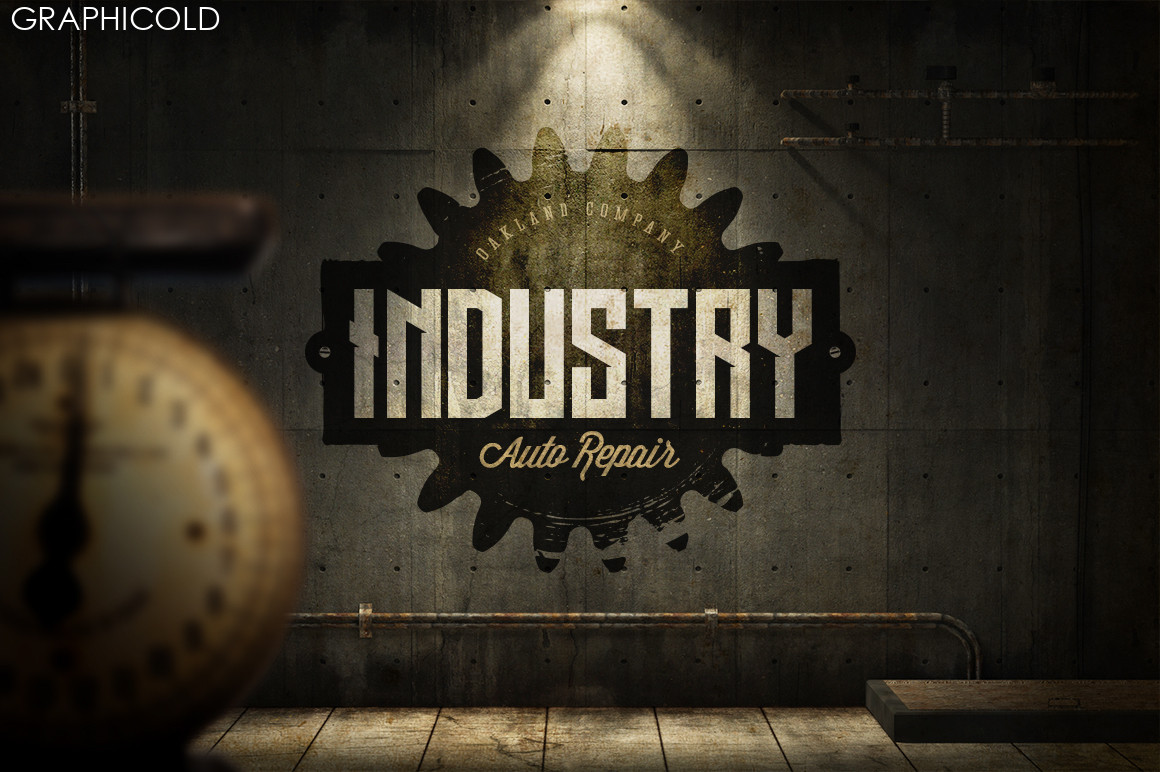
Exploring The Fascinating World Of Font Industry
The Importance of the Font Industry
The font industry has become a crucial part of the design world. From websites to logos, typography plays a vital role in how we perceive and understand visual communication. The font industry is continually expanding to meet the demands of designers and marketers worldwide. Let’s take a look at why the font industry is so important.
Font Trends
Font trends are constantly evolving, and designers need to keep up with the latest developments. The font industry provides designers with a vast array of options to choose from, ensuring that they can create unique and engaging designs that resonate with their target audience.
Fonts are becoming more visually appealing, with the rise in popularity of handwritten and brush fonts. Designers are experimenting with typography, pairing bold and thin fonts to create contrast and depth. The industry’s ability to produce new and exciting fonts has led to an increase in the use of typography in branding and marketing campaigns.
Accessibility
The font industry has also made significant strides towards accessibility. Dyslexia is a common learning difficulty that affects millions of people worldwide. Dyslexic fonts have been developed to provide clear and legible text for those with the condition. These fonts have become increasingly popular, with many brands implementing them on their websites and marketing materials.
Globalization
The font industry has also played a crucial role in globalization. With the rise of the internet, businesses now have a global reach. Brands need to consider how their marketing materials will be perceived in different countries and cultures. The font industry provides designers with fonts that support non-Latin scripts, ensuring that brands can communicate effectively with their target audience, regardless of their language.
Conclusion
The font industry has become an essential part of the design world, providing designers with a vast array of options to choose from. The industry’s ability to produce new and exciting fonts has led to an increase in the use of typography in branding and marketing campaigns. Additionally, the industry’s focus on accessibility and globalization has made it possible for brands to communicate effectively with their target audience. As the design world continues to evolve, the font industry will play an increasingly important role in shaping the way we communicate visually.